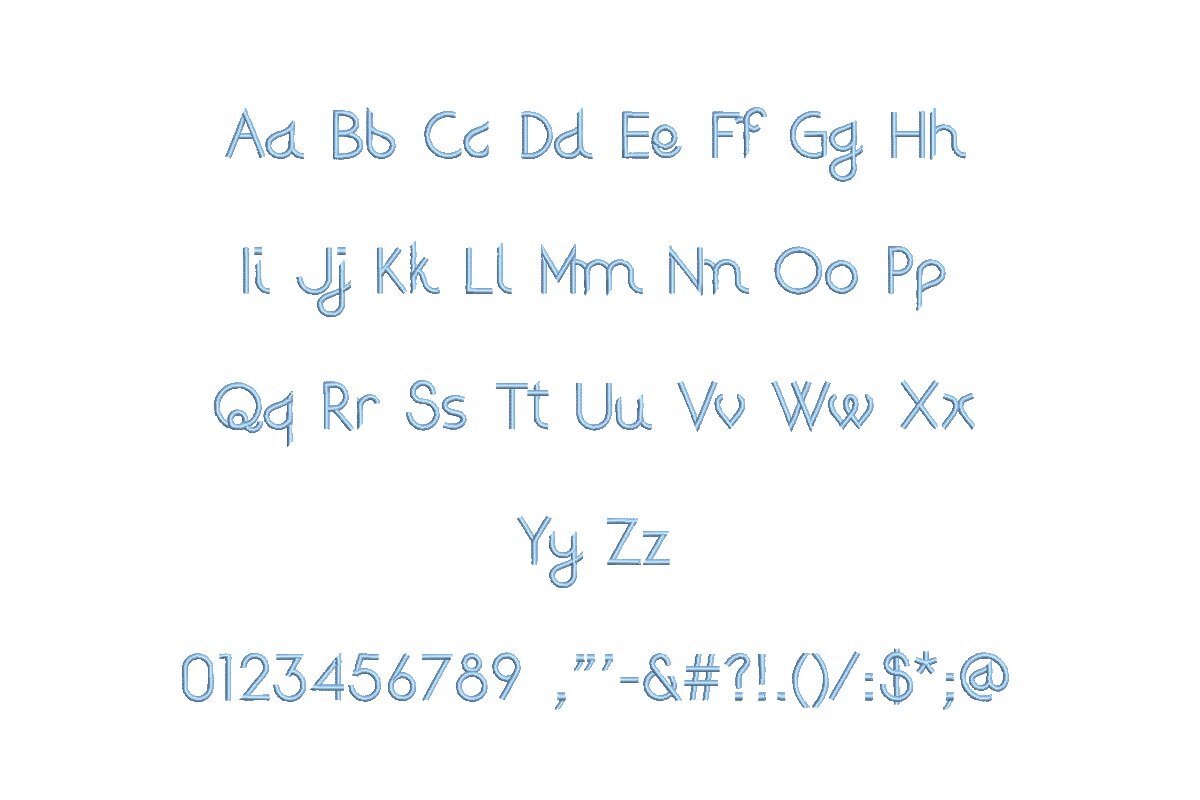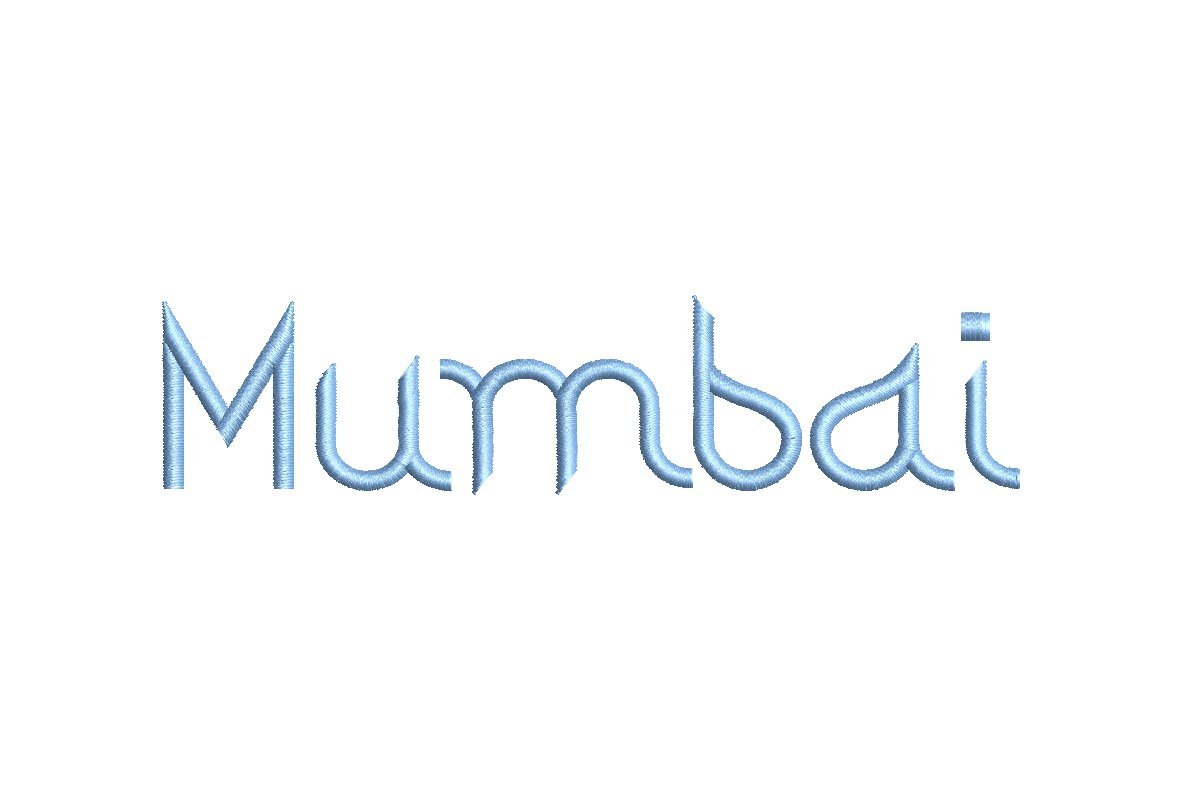
Introducing the Mumbai ESA Font - Your Passport to Vibrant Embroidery! Crafted for seamless compatibility with Wilcom Studio e4.5.6 and Hatch 3 versions and beyond, this font embodies the spirit of Mumbai's vivacious culture. Its bold and vibrant design adds a unique, energetic touch to your projects, ensuring they captivate with flair. Achieve professional-grade embroidery effortlessly with this user-friendly digitized font, promising precision in every stitch. Immerse yourself in a world of boundless creative possibilities with the Mumbai ESA Font, and elevate your Wilcom Studio and Hatch software. Choose vibrancy over the ordinary - upgrade today for an extraordinary embroidery journey. Your designs deserve the Mumbai magic.